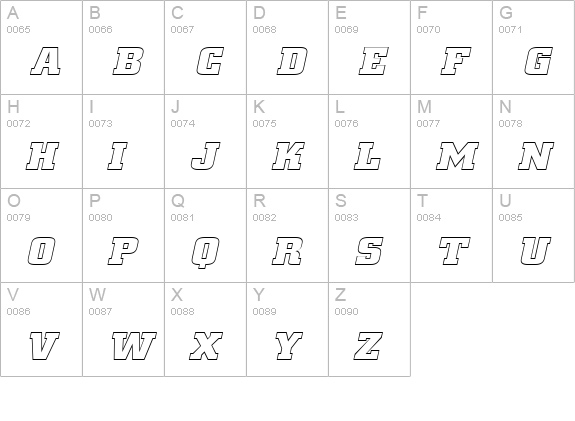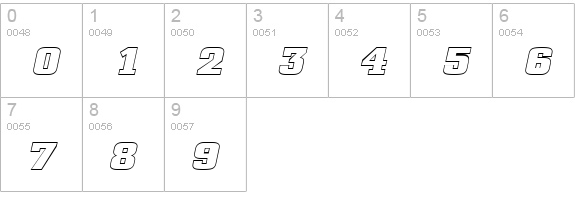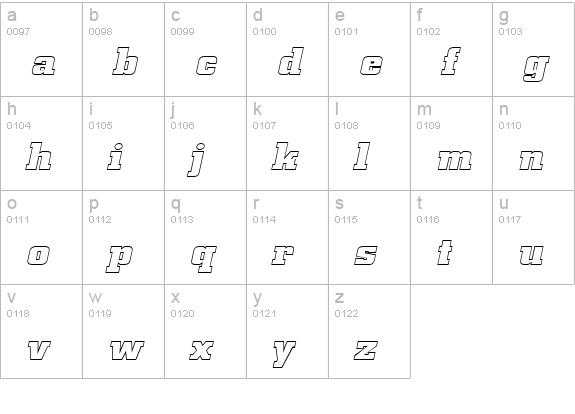
BorghsHollowExtended Italic Font Details
BorghsHollowExtended Italic is a distinctive, italic variant in the BorghsHollowExtended typeface family \xE2\x80\x94 well suited to design and typography projects.
BorghsHollowExtended Italic font is a stylish and modern typeface that exudes elegance and sophistication. Its sleek, elongated letterforms create a sense of movement and fluidity, making it perfect for projects that require a touch of sophistication. This font is versatile and can be used for a wide range of design projects, from branding to editorial design. Its italic style adds a dynamic and energetic touch to any text, making it stand out and grab attention. Whether you're designing a logo, creating a poster, or working on a website, BorghsHollowExtended Italic font is sure to elevate your design and give it a touch of class. Best of all, this font is free to download at FontsMarket.com, making it easily accessible for designers looking to add a touch of elegance to their projects without breaking the bank. Download BorghsHollowExtended Italic font today and elevate your design to the next level.